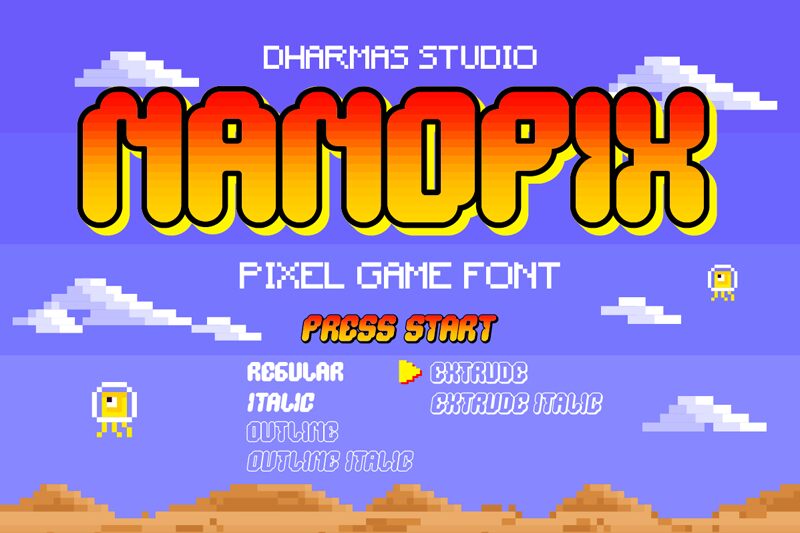
Nano Pix DEMO Regular
Nano Pix, conceived by Dharmas Studio, is a display font that embodies the future with its techno style. Its bold weight commands attention while the semi-expanded width ensures legibility, making it a standout choice for titles and headers. The sleek lines and curves of Nano Pix exude modernity and sophistication, suitable for projects looking to convey innovation and cutting-edge design.
Whether for branding, digital interfaces, or creative prints, Nano Pix offers a versatile aesthetic that can adapt to various contexts while maintaining its distinctive character.